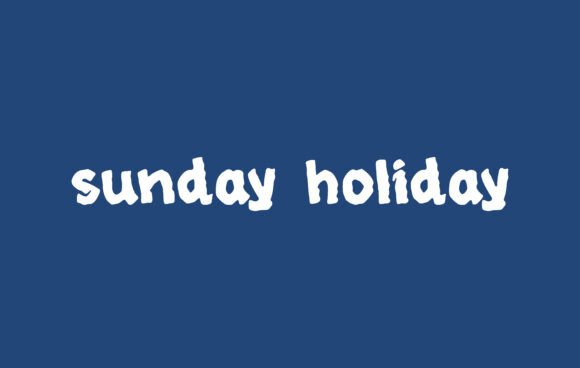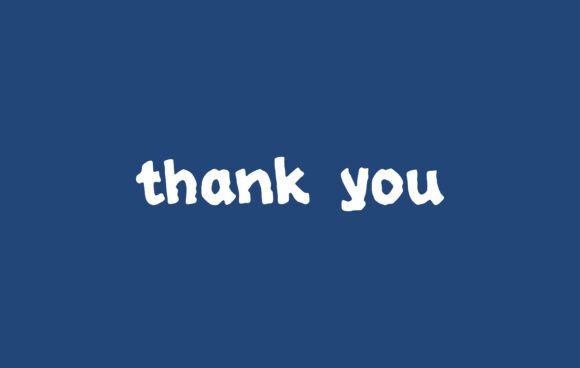
Freyja Font: Elevate Your Designs with a Romantic Handwritten Touch
In the world of typography, a well-crafted font can make all the difference in bringing your creative ideas to life. If you’re a designer or crafter looking for a unique and authentic handwritten font with a romantic touch, look no further than Freyja Font. Expertly designed to capture the hearts of designers and crafters alike, Freyja Font has the potential to take your designs to new heights.
What Makes Freyja Font Special?
Freyja Font is an authentic handwritten font that exudes a sense of romance and elegance. Its carefully crafted letters are designed to be legible and visually appealing, making it perfect for use as both title and body text. Whether you’re working on a magazine headline, social media post, branding project, wedding invitation, or card, Freyja Font is sure to add a touch of sophistication and whimsy to your design.
Key Features of Freyja Font
- Authentic Handwritten Style: Freyja Font boasts an authentic handwritten style that adds a personal touch to your designs.
- Romantic Touch: The font’s romantic undertones make it perfect for designs that require a touch of elegance and sophistication.
- Legibility: Freyja Font is designed to be highly legible, making it suitable for use as both title and body text.
- Versatility: This font is perfect for a wide range of design projects, including magazine headlines, social media posts, branding, wedding invitations, cards, and more.
Why Choose Freyja Font?
With so many fonts available, why choose Freyja Font? Here are just a few reasons why designers and crafters are falling in love with this beautiful font:
- Unique and Authentic: Freyja Font offers a unique and authentic handwritten style that sets it apart from more generic fonts.
- Elegant and Sophisticated: The font’s romantic undertones add an air of elegance and sophistication to your designs.
- Easy to Read: Freyja Font is highly legible, making it perfect for use in a variety of design projects.
- Highly Versatile: This font can be used for a wide range of design projects, from print materials to digital content.
How to Use Freyja Font in Your Designs
Ready to incorporate Freyja Font into your designs? Here are a few ideas to get you started:
- Magazine Headlines: Use Freyja Font to add a touch of elegance and sophistication to your magazine headlines.
- Social Media Posts: Add a romantic touch to your social media posts with Freyja Font.
- Wedding Invitations: Make your wedding invitations truly special with Freyja Font.
- Branding: Use Freyja Font to add a personal touch to your brand’s marketing materials.
- Cards and Stationery: Add a touch of whimsy and romance to your cards and stationery with Freyja Font.
In conclusion, Freyja Font is a beautiful and authentic handwritten font with a romantic touch that’s sure to elevate your designs to new heights. With its unique and elegant style, high legibility, and versatility, Freyja Font is the perfect choice for designers and crafters looking to add a touch of sophistication and whimsy to their work. Whether you’re working on a magazine headline, social media post, wedding invitation, or card, Freyja Font is sure to be a true favorite.